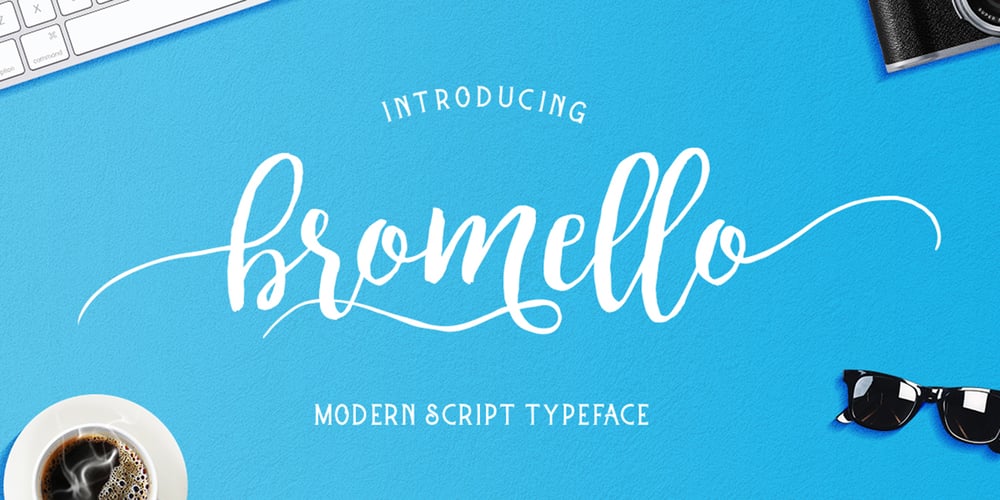
Bromello Font Family was designed by Alit Suarnegara and published by Alit Design. Bromello contains 2 styles and family package options. Introducing Bromello modern script typeface, using style hand made with brushing. Bromello is beautiful for wedding card design, logotype, blog or website header, fashion design, YouTube video thumbnails and any more. Bromello uses classic handwriting techniques to create a beautiful, modern design. Bromello is very popular at the moment and unique for so many reasons. People use the font to create and express their own style, create beautiful projects, promote their brands and projects and more. Remember, be inspired with your own styles and ideas and have fun! Product Content : • bromello typeface (OTF & TTF Format) • bromello italic typeface (OTF & TTF Format) Features : • Character Set A-Z • Numerals & Punctuations (OpenType Standard) • Accents (Multilingual characters) • Contextual Alternates • Swash • Stylistic Alternates